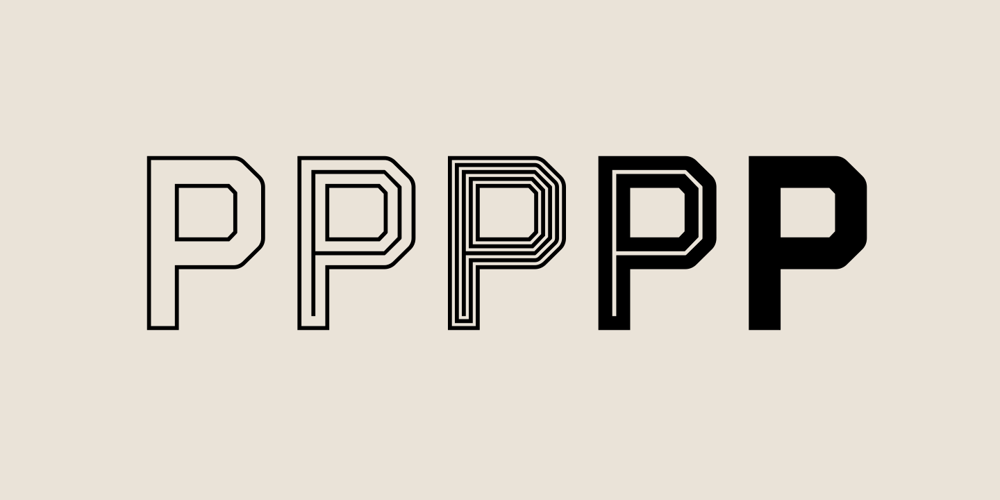
Parco
Parco font
Parco Font Family was designed by Stefano Giliberti and published by Stefano Giliberti. Parco contains 10 styles and family package options. Parco is a font family inspired by the laconic way of living. It supports 111 languages, features a total of 311 glyphs and includes an italicized version for each of the 5 styles.